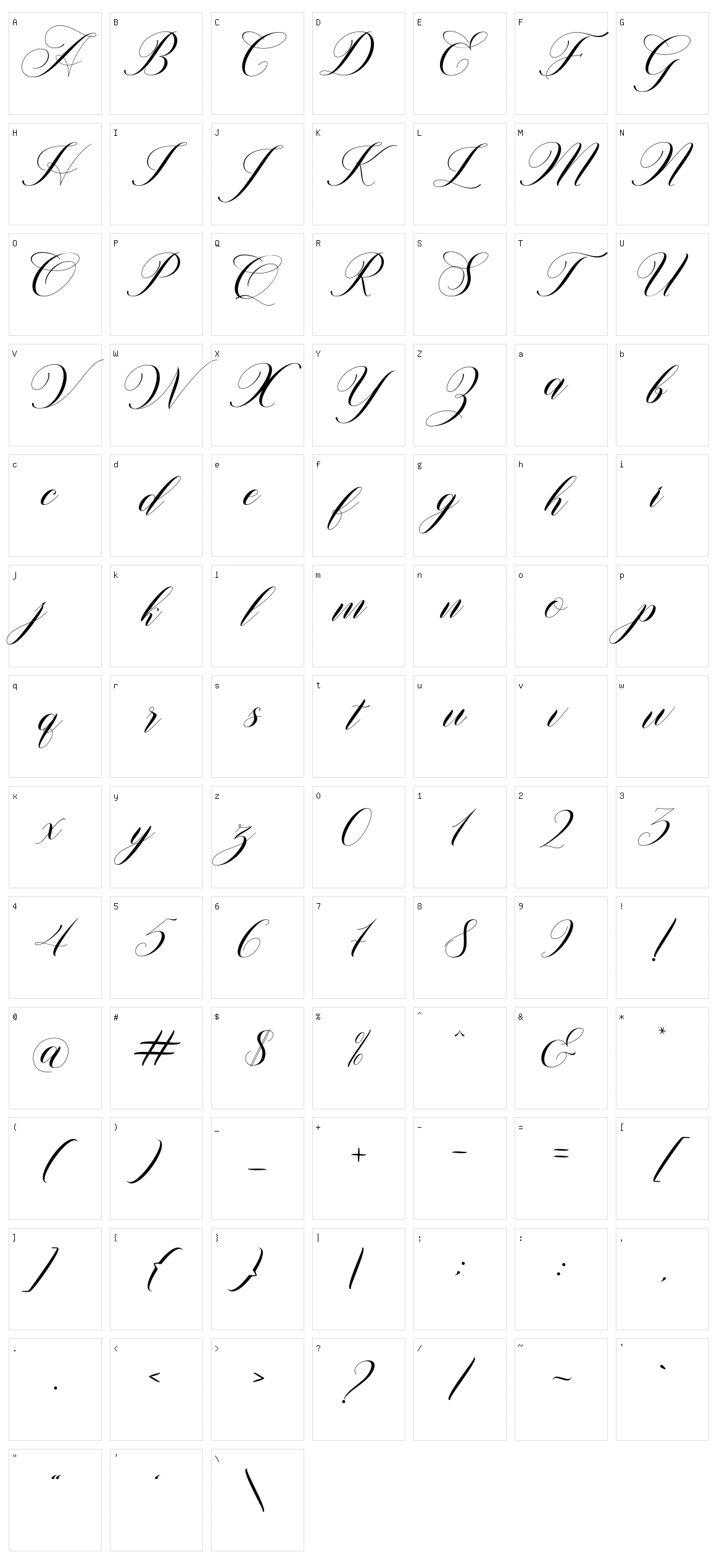
The free font Willgets is carefully designed by Soft Creative, showcasing a thoughtful balance of creativity and usability and falls under the Script font style. When you download the ZIP file, it contains only 71 KB of font files, making it lightweight and quick to download. Please review the license details below to understand permitted usage and distribution rights. If license information is not available, we recommend using this font for personal projects only or contacting the author directly for commercial usage permissions.